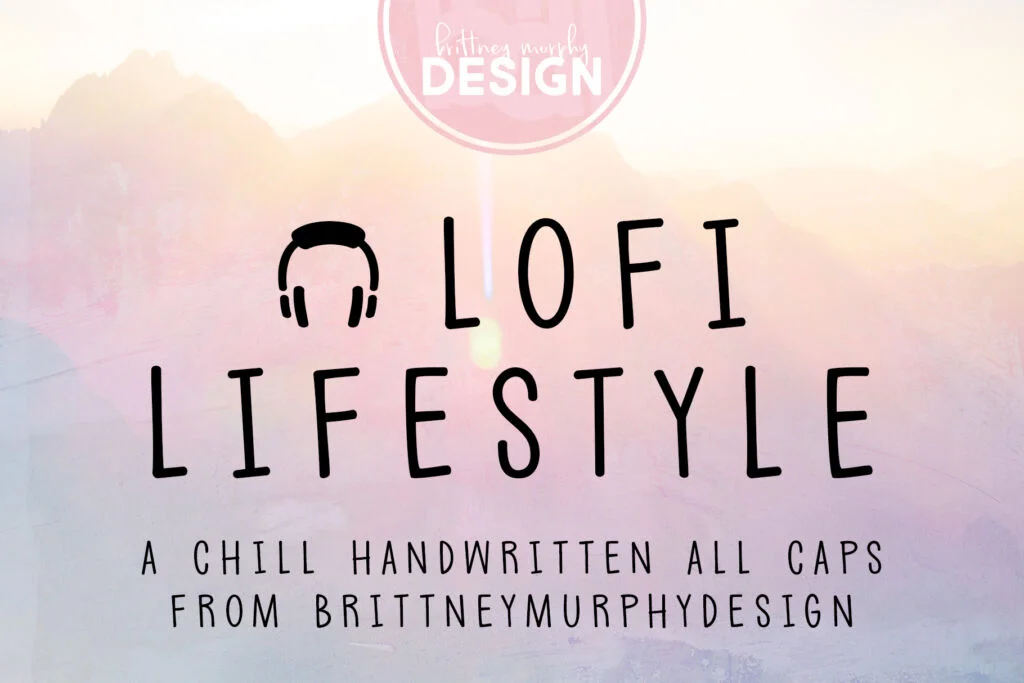
LoFi Lifestyle
LoFi Lifestyle Font
Regular Letters
About the LoFi Lifestyle Font
The Lofi Lifestyle Font is a chill, handwritten, all-caps typeface created in 2022 by Brittney Murphy Design.
With over 330 glyphs, the LoFi Lifestyle Font supports most Latin-based languages and the full version includes numbers and punctuation that you will need. Using the asterisk (*) will give you a fun headphone icon you can use in your projects.
This font is great for text you want to give a casual and understated feeling to. Great for matching with bold or aggressive scripts to bring balance to your design.